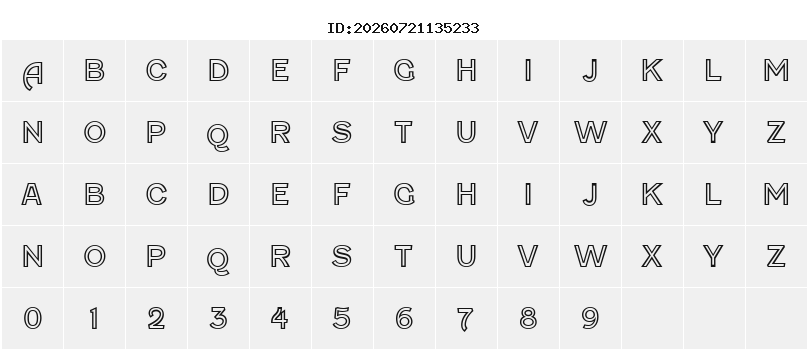
• Designer: Ray Larabie
• Description: There's a lot more the Fenwick than Fenwick Outline Free. Visit Typodermic and check out Fenwick Olden, a finely detailed shaded version. Fenwick is available in light, regular and bold with italics for each.
About Fenwick Outline Free.ttf
Fenwick Outline Free.ttf is a modern, elegant sans-serif font designed for ultimate readability and visual harmony. Perfect for branding, headlines, web design, and print materials.